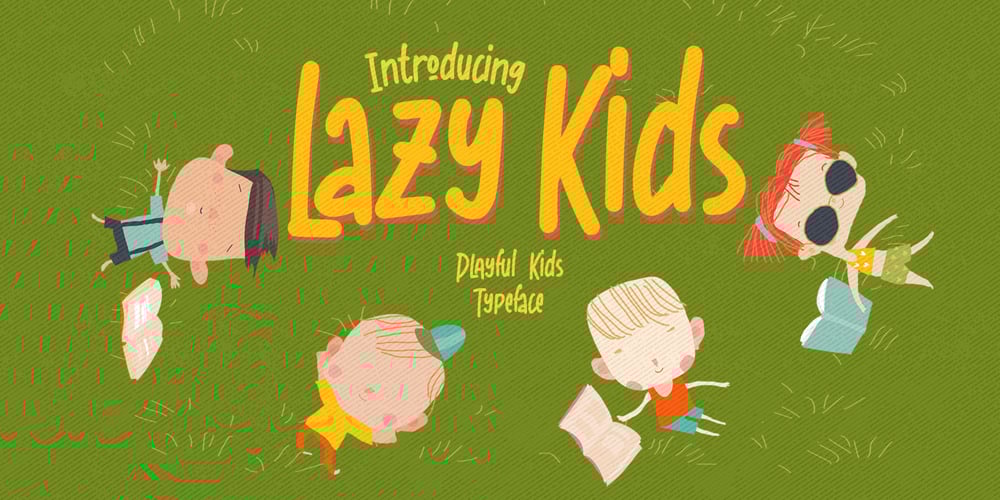
Lazy Kids Font Family was designed by Abdul Malik Wisnu, Anang Fibriyanto and published by Gassstype. Lazy Kids contains 1 styles and family package options. Hello Everyone, introduce our new product Lazy Kids is a Playful Kids Typeface with a natural feel. This handmade font will make your design has a beautiful natural touch for each details. It is perfect for any design project as Invitation,logo, book cover, craft or any design purposes.This font is PUA encoded which means you can access all of the magical glyphs. It also features a wealth of special features including ligatures glyphs.